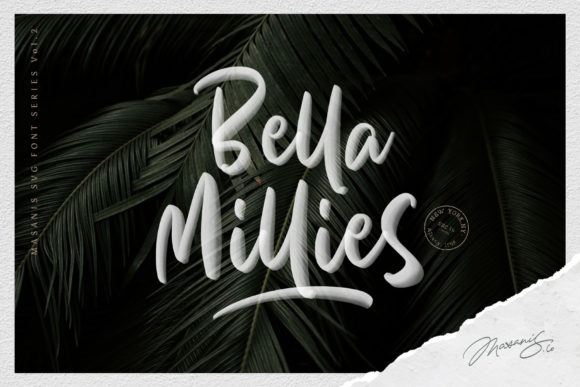
Unleash the enchanting allure of Bella Millies Font, a creation of Mas Anis that redefines elegance with its captivating script style. Immerse yourself in a world of beauty as this font weaves its magic, transforming your creative visions into masterpieces.
Bella Millies Font is the epitome of sophistication, effortlessly adding a touch of luxury and refinement to your designs. Its delicate strokes and graceful curves dance across the page, evoking a sense of whimsy and wonder. Whether you're crafting an email signature that speaks volumes about your personality or adding a touch of flair to your DIY projects, this font will elevate your creations to new heights.
Experience the versatility of Bella Millies Font, a font that seamlessly adapts to a myriad of creative endeavors. Its elegant character lends itself effortlessly to Instagram posts, where your words will shine with an eye-catching allure. Let your imagination soar as you explore the endless possibilities, from personalized invitations and greeting cards to stunning logos and branding materials.
With Bella Millies Font, you'll discover a font that ignites creativity and fuels your passion for self-expression. Its enchanting charm will captivate your audience, leaving a lasting impression that lingers in their minds. As you effortlessly glide your fingers across the keyboard, watch as your ideas take shape, transformed into visual masterpieces that speak to the heart.
So, embrace the beauty and enchantment of Bella Millies Font, a font that will transform your creative journey. Let your imagination flourish as you delve into a world of endless possibilities, where every word you type becomes a stroke of elegance and grace.